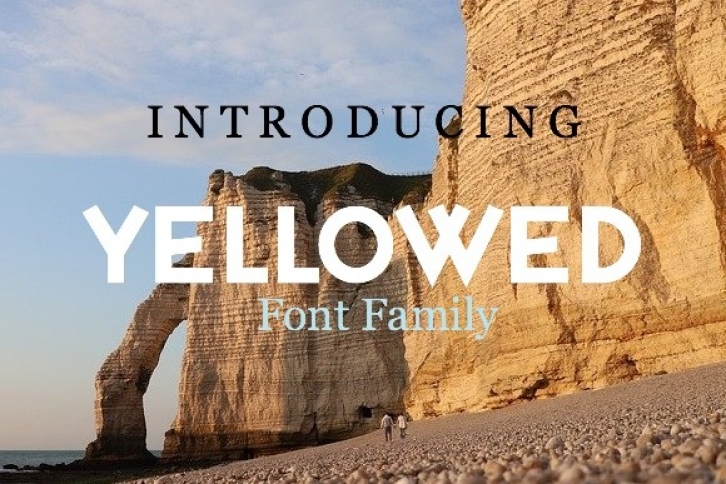
Yellowed is a natural and clean sans serif font family. It can easily be matched to an incredibly large set of projects, so add it to your creative ideas and notice how it makes them stand out! No matter the topic, this font will be an incredible asset to your fonts’ library, as it has the potential to elevate any creation.